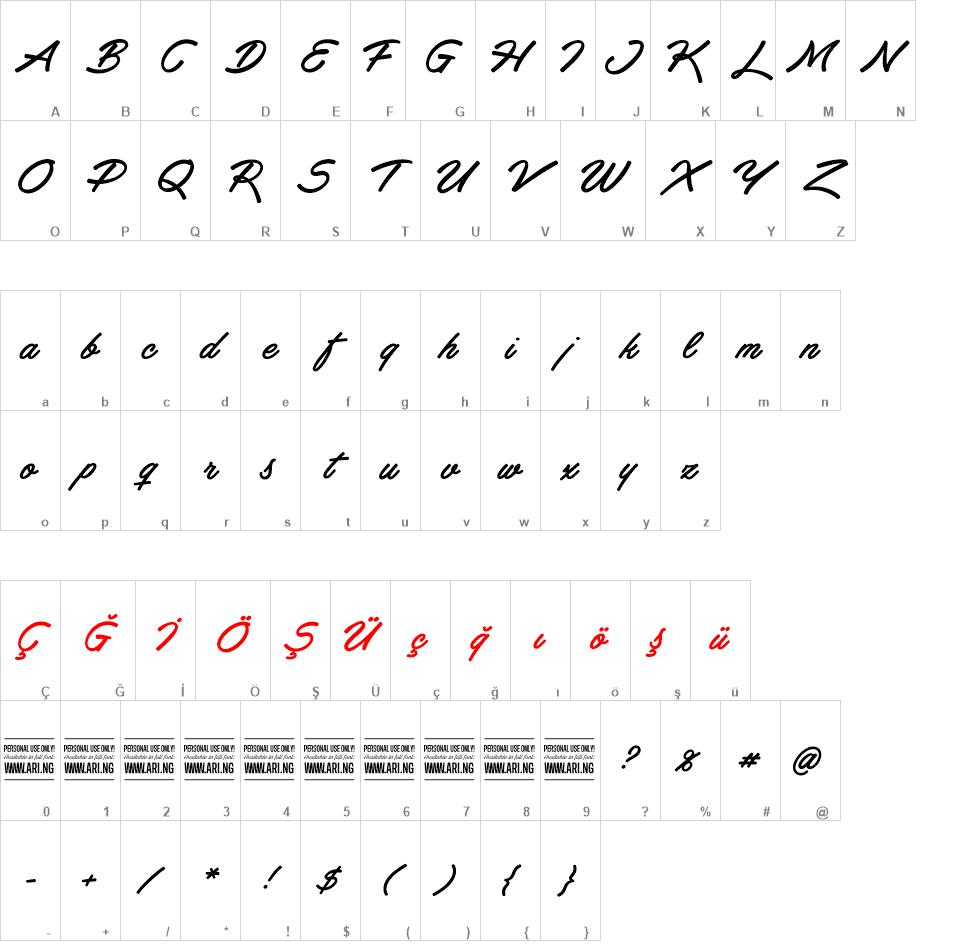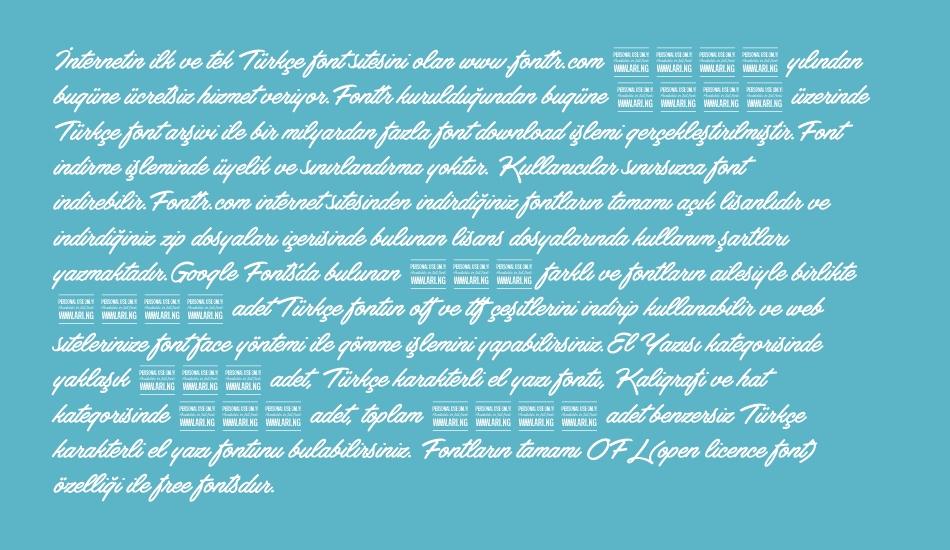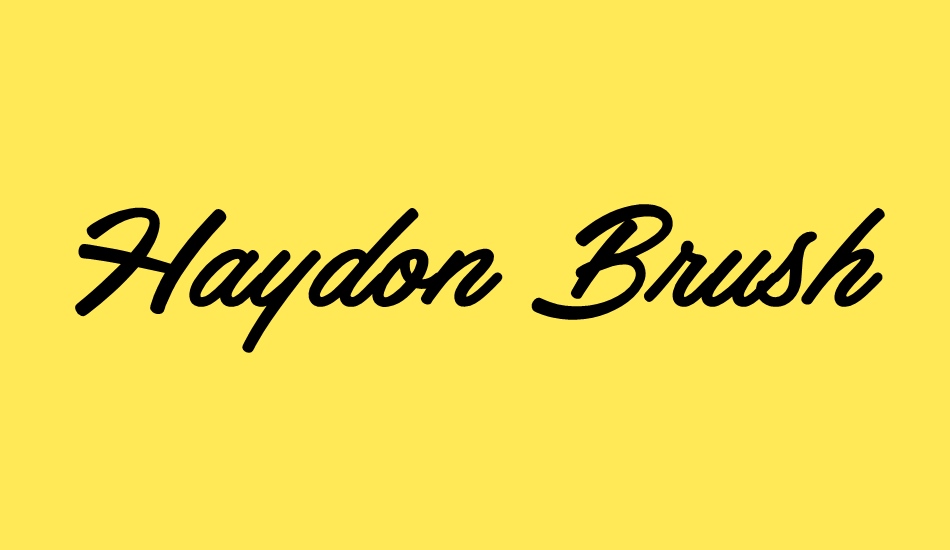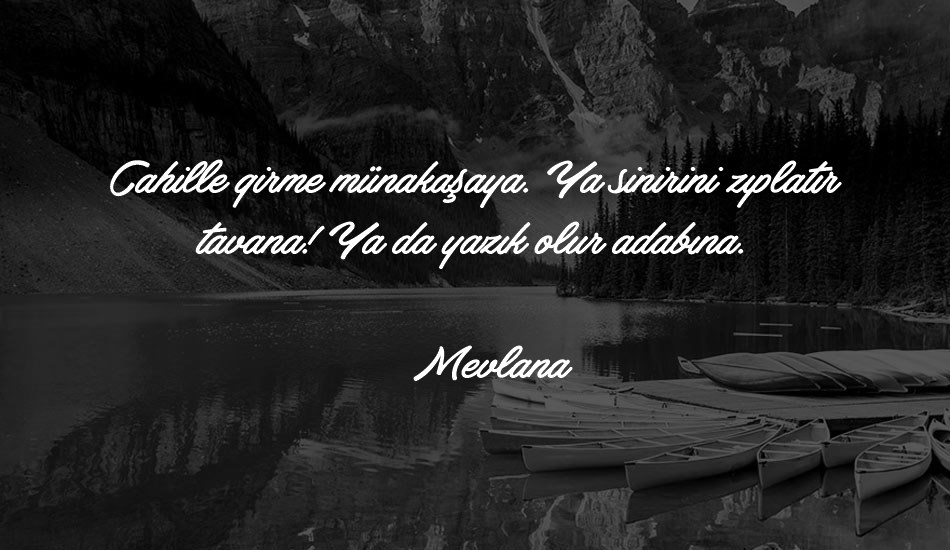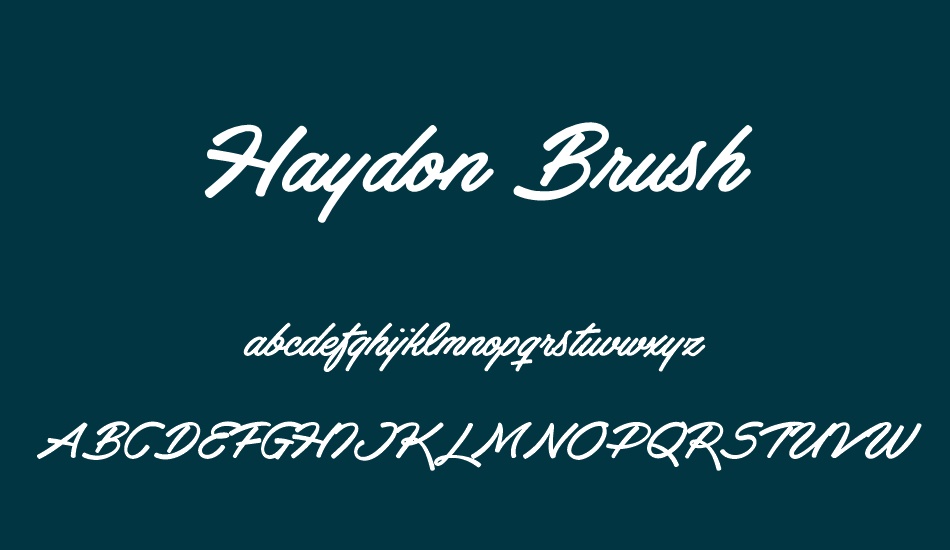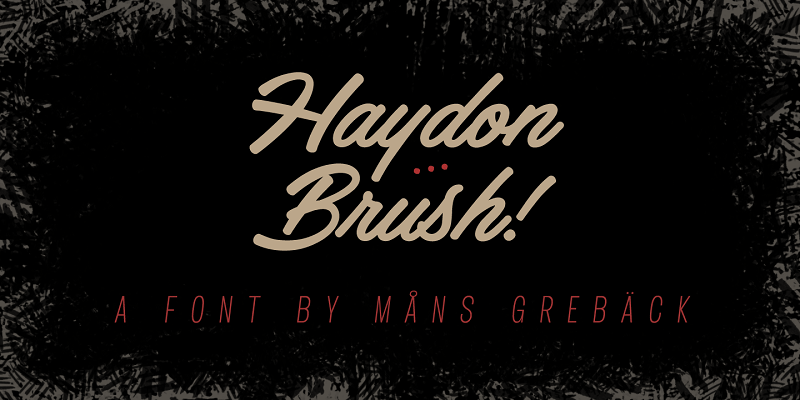
Haydon Brush font
Haydon Brush is a handwritten brush typeface.
It is staunch and confident, the perfect type to use for a diagonal slogan or a logotype.
The font contains ligatures, smaller case contextual and stylitic alternates, as well as a full upper case alternate alphabet.
Designed by M?ns Greb?ck, it is guaranteed to give your projects the extra character it needs.